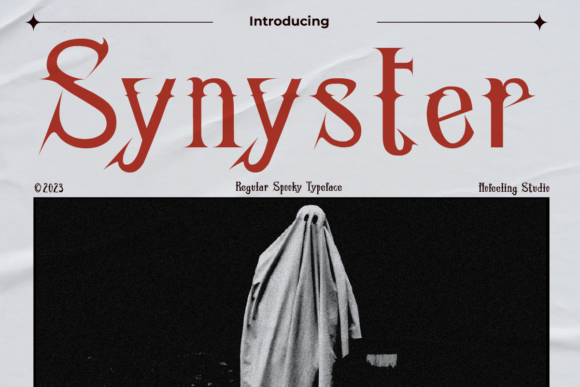
Introducing Synyster Font, the ultimate choice for all your film title needs. Created by the talented designers at No Feeling Studio, this font exudes a captivating and gothic style that will leave your audience spellbound. With its versatility to blend seamlessly with modern trendy serif styles, Synyster Font is not just limited to horror or dark impressions. It is a font that transcends boundaries and opens up a world of creative possibilities.
Are you in search of a font that will elevate your logotype media designs to new heights? Look no further. Synyster Font is the epitome of sophistication and class, adding a touch of mystery and allure to your branding. Its bold and striking appearance will command attention and leave a lasting impression on your audience.
But that's not all. Synyster Font is not just designed to impress visually, but also to evoke emotions and captivate the senses. Its dark and gothic undertones lend a sense of intrigue, making it a perfect choice for merchandise, posters, and even t-shirts. Imagine the impact your designs will have when adorned with this unique and enticing font.
What sets Synyster Font apart from the rest is its ability to tell a story. Every letter, every curve, and every stroke has been meticulously crafted to convey a sense of drama and intensity. It whispers tales of mystery, whispers of suspense, and whispers of the unknown. With Synyster Font, you have the power to transport your audience into a world of imagination and anticipation.
Unlock the potential of your creative projects with Synyster Font. Whether you are a filmmaker, a graphic designer, or simply someone seeking to add an edge to your visual creations, this font is the perfect companion. Its keyword-rich design ensures that your content will be easily discoverable by those searching for the best font for film titles.
In conclusion, Synyster Font is not just a font; it is a gateway to a world of endless possibilities. Let its gothic and dark style theme ignite your creativity and set your designs apart. Download Synyster Font today and embark on a journey of visual storytelling like never before.